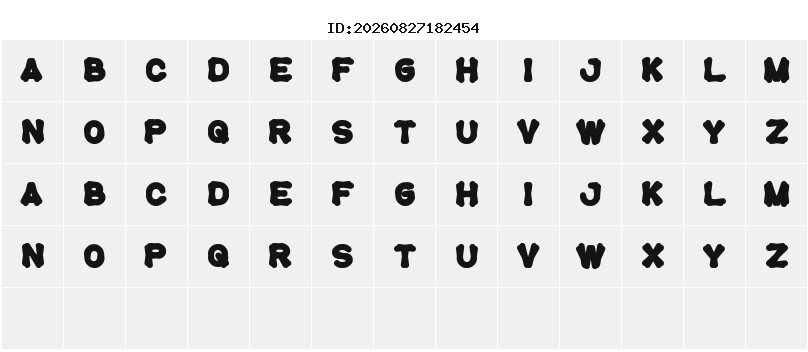
tortoise Preview
• Font Name: tortoise
About tortoise.ttf
tortoise.ttf is a modern, elegant sans-serif font designed for ultimate readability and visual harmony. Perfect for branding, headlines, web design, and print materials.